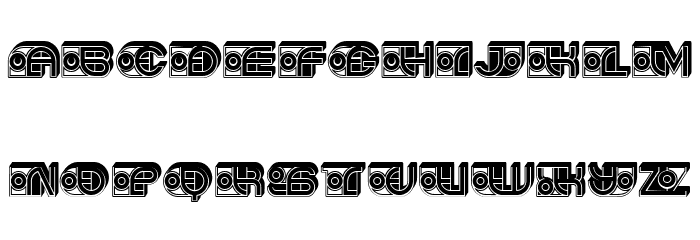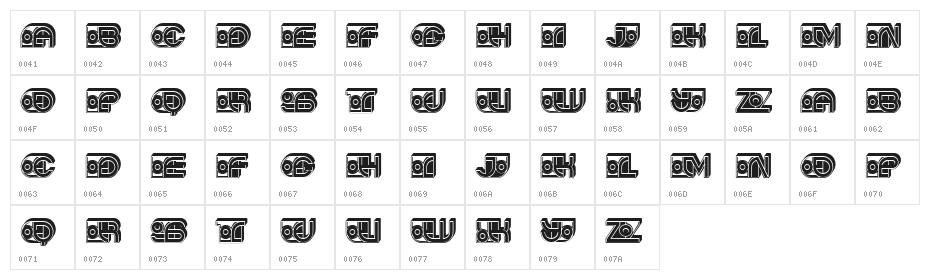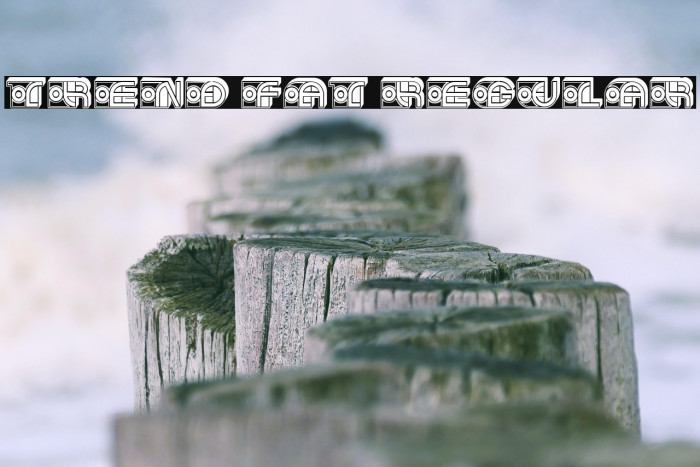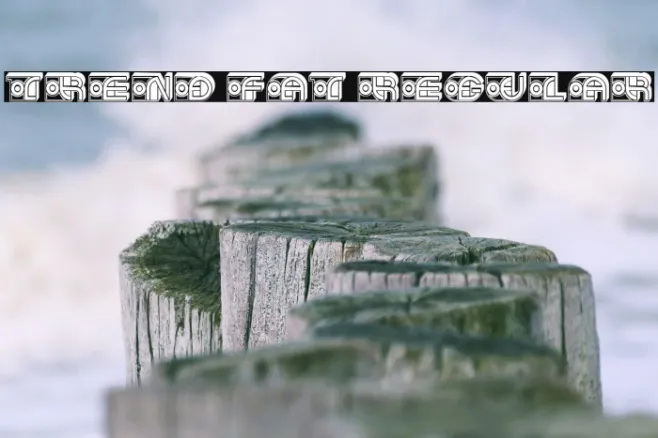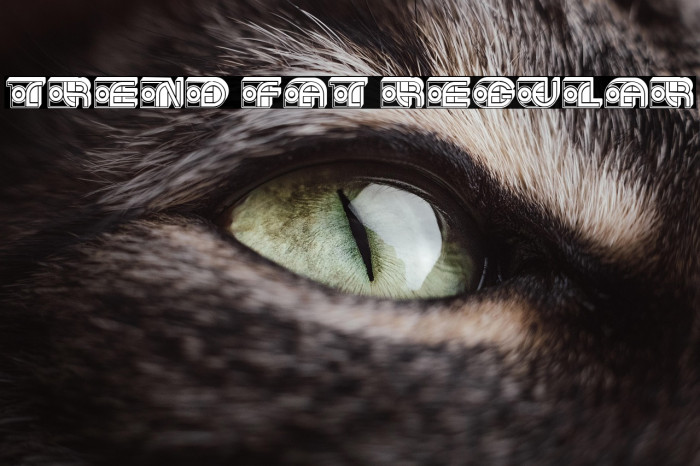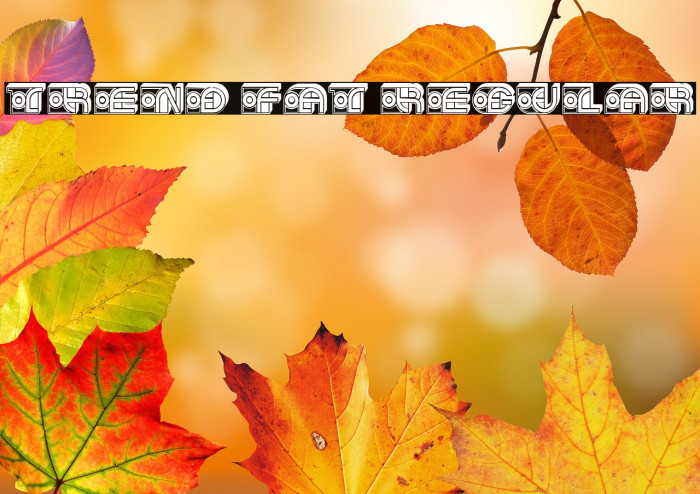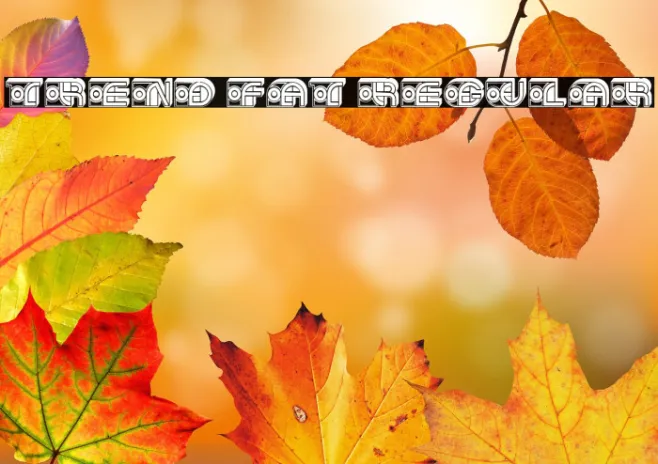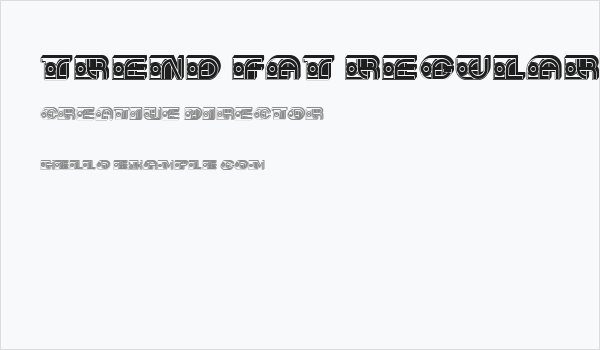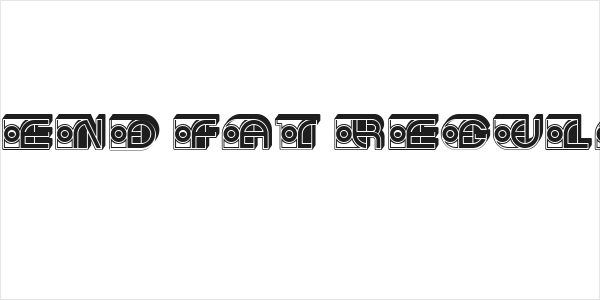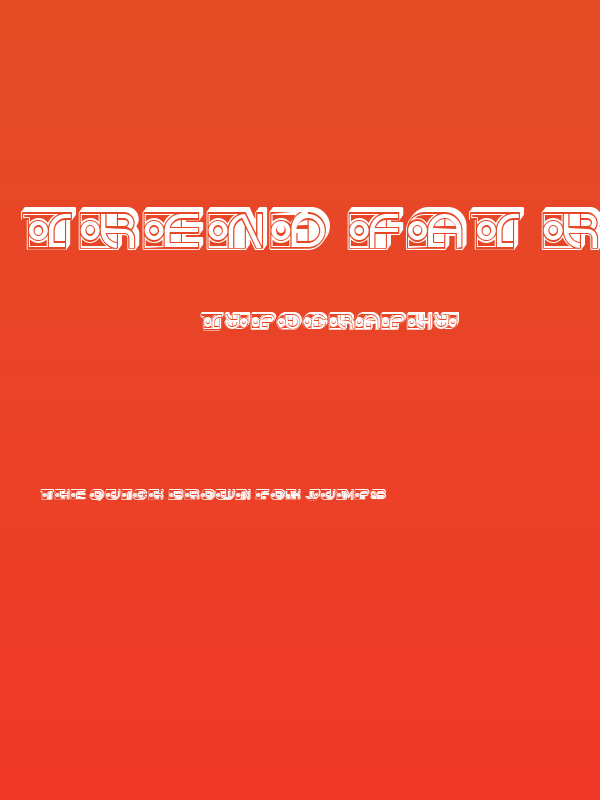
Trend Fat Regular Font
Trend Fat Regular Description
This font features a bold, decorative style with intricate patterns within each character. The letters are designed with a strong geometric influence, incorporating circular and linear elements that create a sense of movement and complexity. The overall appearance is striking and eye-catching, making it ideal for projects that require a unique and artistic touch. The characters are evenly spaced, ensuring readability despite their elaborate design. This font is perfect for creative projects where a bold statement is needed.
| Proposed Projects | Ideal for posters, album covers, branding, and any project needing a bold, artistic flair. |